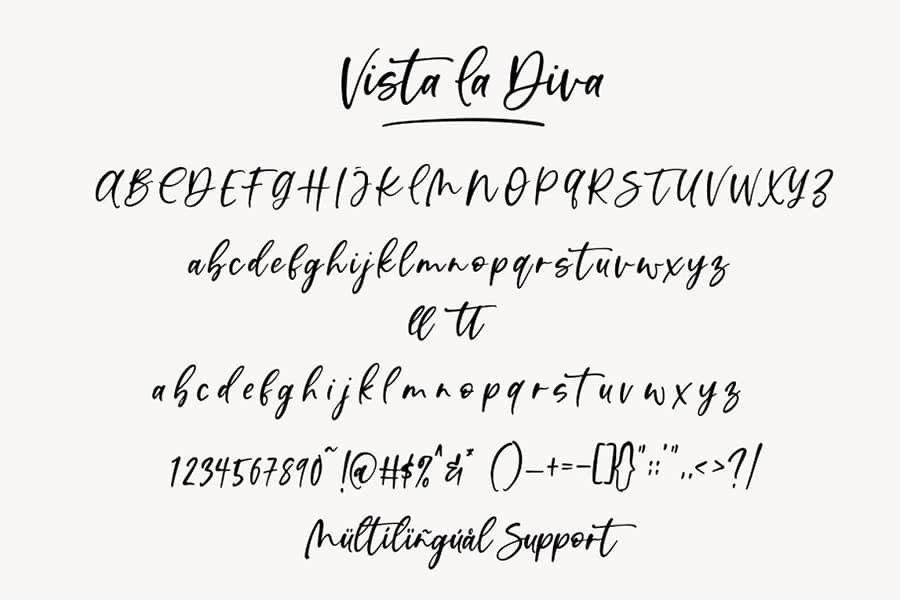
Vista La Diva Font
Vista La Diva Font is a gorgeous Calligraphy and Script font that is designed and published by Sron studio on September 12, 2019.
Vista La Diva Font is a lovely Calligraphy and Script font that includes a complete collection of upper and lowercase characters, contextual alternatives, multilingual figures, digits, and punctuation. TrueType and OpenType fonts are both available for Vista La Diva. Swashbucklers and linguistic support are also included in this font. There are two aspects to the typeface: script and calligraphy. Fonts such as Vista La Diva Font can be quickly transferred to web fonts.
Vista is a stunning script font that’s ideal for logos, invitations, stationery, wedding designs, social media posts, commercials, product packaging, product designs, labels, photography, signatures, special events, and therefore more. Also, The font Vista La Diva Font commonly used in many quotations writing for the quality of having a beautiful touch of Calligraphy.
StyleScript, Calligraphy